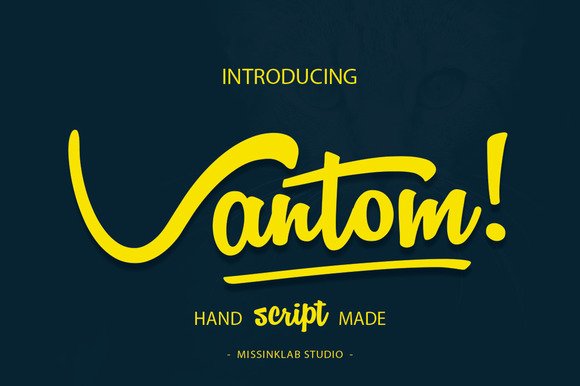
Vantom Script Font
Introducing “Vantom” script font – a modern with sweet emotion handwriting font script. Vantom comes with uppercase, lowercase, numerals, punctuations and so many variations on each characters and also additional swash to let you customise your designs. Perfect to use for Logotype, Letterhead, Poster, Apparel Design, Label and etc.